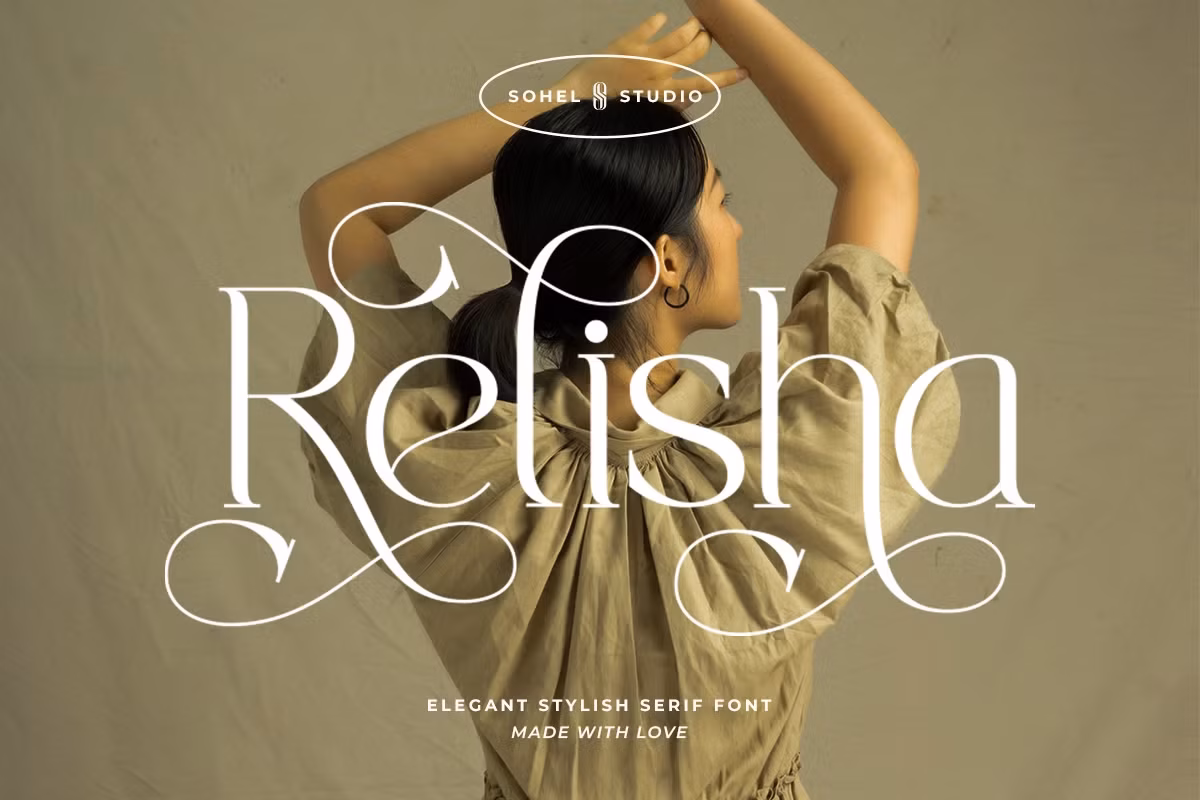
Relisha - Classy Advertising Font Free Download
Relisha - Classy Advertising Font Free Download is a refined and elegant typeface designed to bring sophistication and professionalism to your designs. With its bold letterforms and classic style, this font is perfect for high-end branding, advertising campaigns, logos, posters, and more.
Its clean and sleek design ensures readability while maintaining an upscale, polished feel, making it ideal for luxury brands, editorial layouts, and corporate materials. Whether you're creating a stylish logo, a marketing campaign, or promotional materials, Relisha adds a touch of class and strength to your typography.